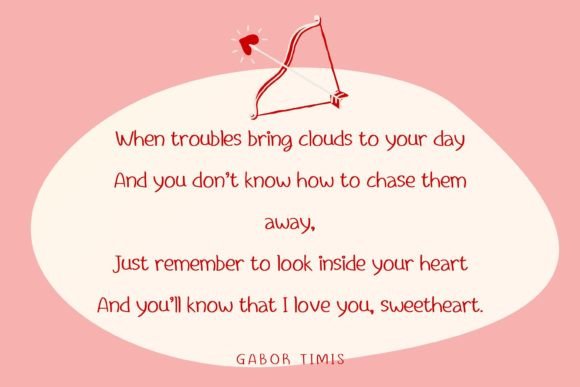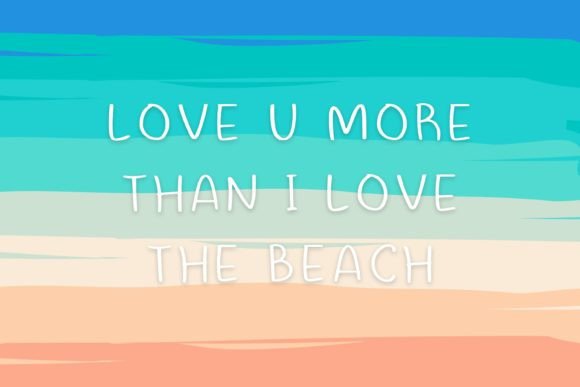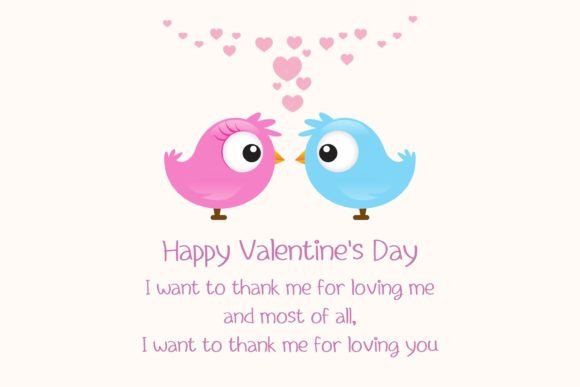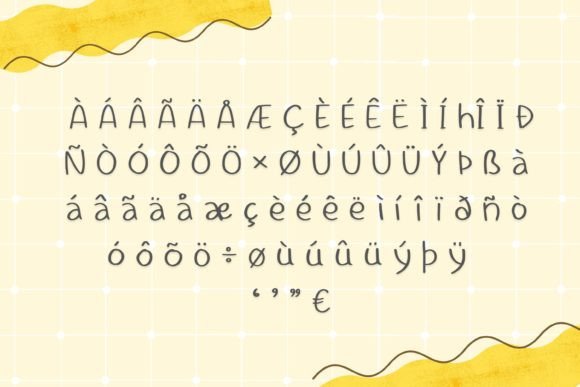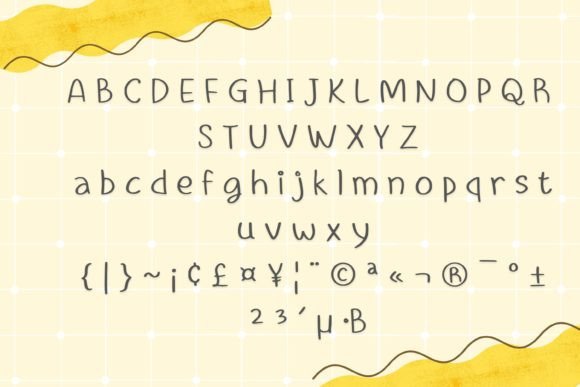
A Cute and Simple Script
Chaymilog is a charming handwritten font with a clean and friendly feel. Each letter has a natural, simple shape that makes your text look playful and approachable. This style is perfect for designs that need warmth and authenticity.
The font’s casual curves and smooth lines help every word feel genuine. Whether you’re working on educational materials or creative projects, Chaymilog adds a unique, personal touch that stands out.
Perfect for Chalkboard Quotes and Teaching
Chaymilog is ideal for chalkboard designs and classroom resources. You can use it to create quotes, lesson titles, and visual aids that feel fresh and fun. Teachers and educators love this font because it feels inviting and easy to read.
It also works well for kids’ books, flashcards, and educational posters. The cute, handwritten style makes learning materials more engaging and friendly.
The font includes uppercase and lowercase letters, numbers, and punctuation marks. It also offers ligatures that help your text flow smoothly. These features give you the flexibility to design with confidence.
Easy to Read and Versatile
Even though Chaymilog has a playful look, it remains clear and easy to read. The spacing between letters is consistent and balanced. This helps your text stay neat whether it’s used in big headlines or small labels.
Many designers pair Chaymilog with simple sans-serif fonts to create contrast. Use Chaymilog for titles and a sans-serif for body text. This combination keeps your layout clean and organized.
Tips for Great Results
To get the most out of Chaymilog, try using light backgrounds and soft colors. Neutral tones and pastel shades highlight the font’s sweet style without feeling too busy.
When designing chalkboard quotes, use white or bright text on a dark background. This makes your message pop and adds a realistic feel. For kids’ projects, consider adding small illustrations or icons to match the playful mood.
Think about the feeling you want to share. Chaymilog is perfect for work that needs to be cheerful, friendly, and easy to connect with.
A Must-Have for Your Font Collection
Chaymilog is more than just a cute script font. It’s a design tool that helps you create text with personality and charm. Its natural lines and authentic look bring every project to life.
Adding Chaymilog to your font library gives you a reliable choice for all kinds of creative and educational projects. From chalkboard quotes and teaching materials to social media posts and packaging, this font adapts with ease.